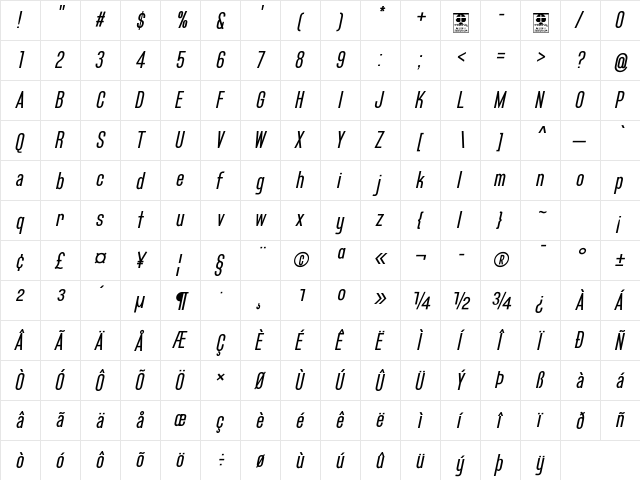
Bluefish Demo Italic
| Foundry | StudioTypo |
| Designer | Mehmet Abac |
Design Context for Bluefish Demo Typeface
Bluefish Demo offers clean, dependable letterforms without strong stylistic allegiance, making it a practical choice for designers who need flexibility. The dynamic lean of this cut emphasises speed and emphasis in any layout.
Pro Tip: Use Bluefish Demo for emphasis, pull quotes, and subheadings where its slanted energy can add rhythm to the layout.